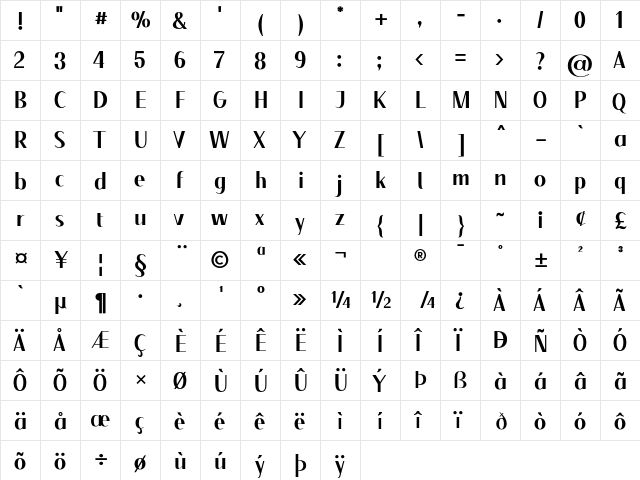
Floane Bold
| Foundry | Daler Mukhiddinov |
| Designer | Daler Mukhiddinov |
Design Context for Floane Typeface
Floane offers clean, dependable letterforms without strong stylistic allegiance, making it a practical choice for designers who need flexibility. Its bold stroke weight gives it real presence on the page.